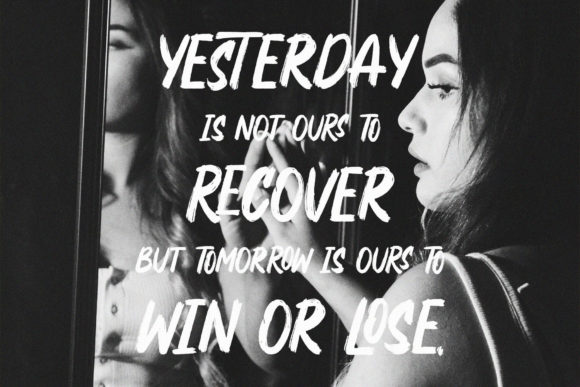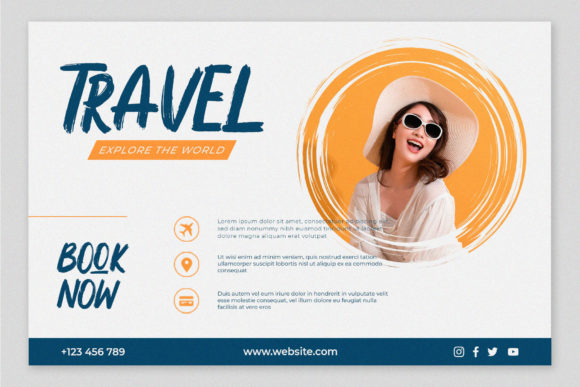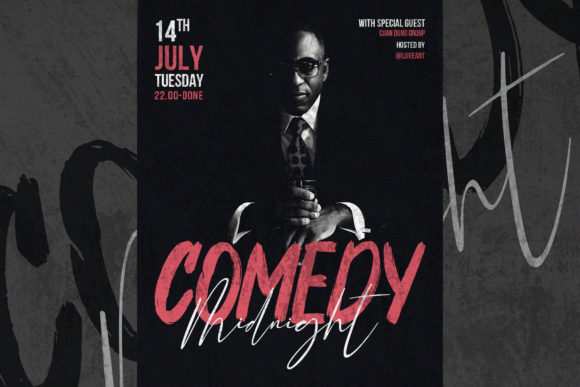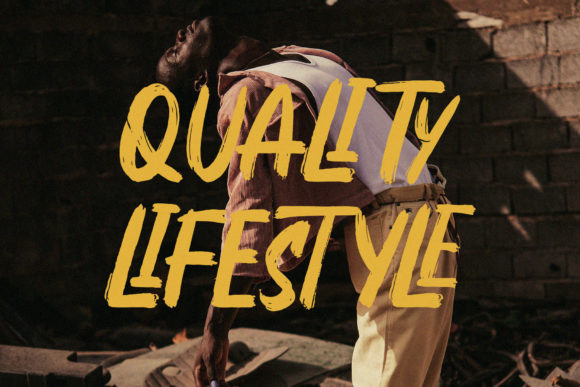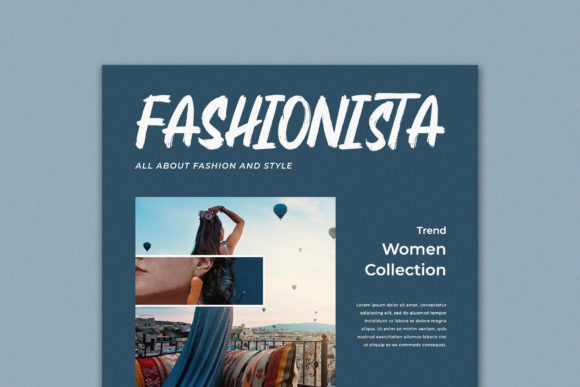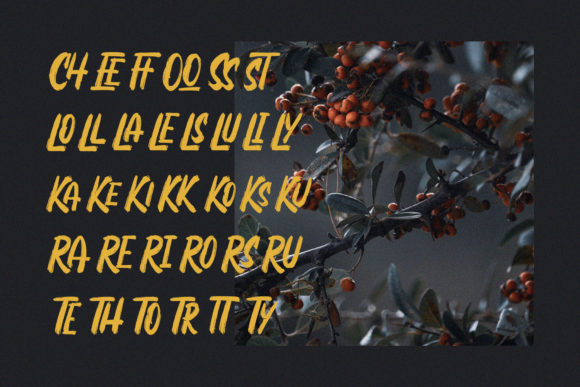
Introduction to Rogersan Font
Imagine you’re brainstorming ideas for a new advertising campaign, and you want to create a bold, eye-catching poster that captures the essence of the city. You’re scrolling through your design resources, searching for the perfect font to give your project that urban look and feel. Suddenly, you stumble upon Rogersan Font – a brand new brush display font that’s packed with ligatures and stylistic alternates. Its unique blend of modernity and vintage charm is exactly what you need to make your creative project stand out.
Rogersan Font is a valuable addition to any designer’s toolkit, offering a high-quality design resource that’s perfect for posters, packaging, advertising, and more. With its transparent background and PUA encoding, you can access all glyphs and swashes with ease, making it a breeze to customize and refine your designs. And the best part? You can download it for free, making it an instant hit with designers looking for a reliable and versatile font.
Key Features of Rogersan Font
- High-quality, unique design for creative projects and design resources.
- Perfect for use in logos, branding materials, and other design elements that require a unique and eye-catching font.
Honest Review: Rogersan Font
One of the standout features of the Rogersan Font is its ability to be used with a transparent background, which allows for seamless integration with any design. I also appreciate the high quality of the font, which is crisp and clear even at larger sizes.
Here are some of the things that work well with the Rogersan Font:✨
- Clean and modern design aesthetic
- Highly legible even at smaller sizes
However, I did encounter a few limitations with the Rogersan Font:⚠️
- May not be suitable for use in very small font sizes
Overall, I’m impressed with the Rogersan Font and would recommend it to designers looking for a high-quality, free design resource for their creative projects.
Common Use Cases for Rogersan Font
The Rogersan Font is perfect for creative projects such as brochures, flyers, posters, and social media graphics. Its high-quality design and transparent background feature make it ideal for a wide range of design applications.